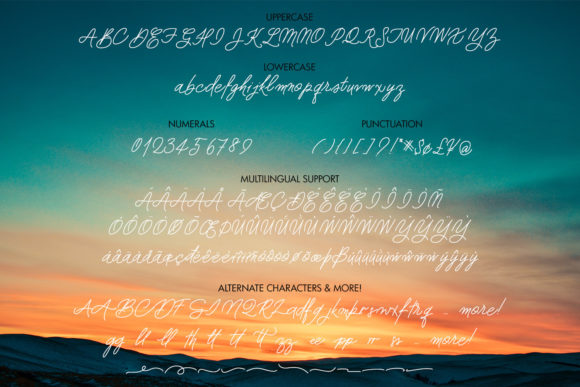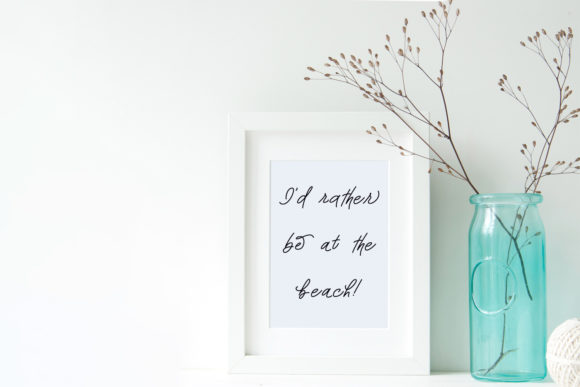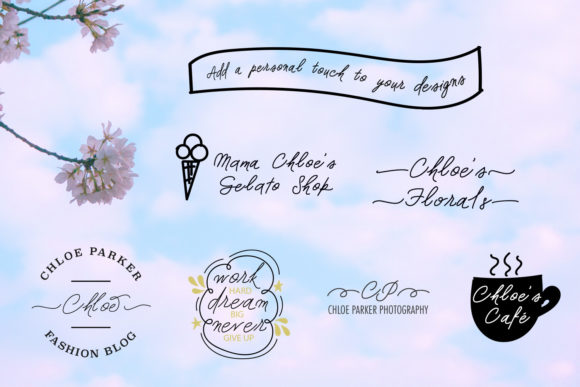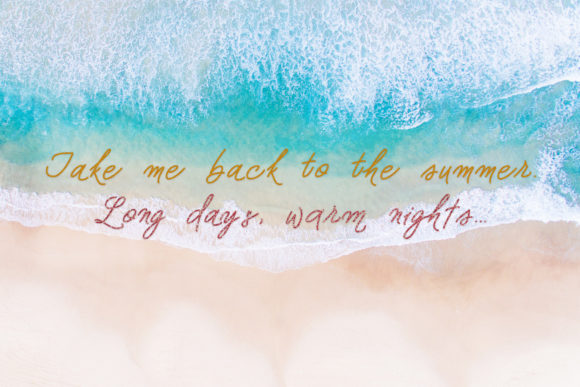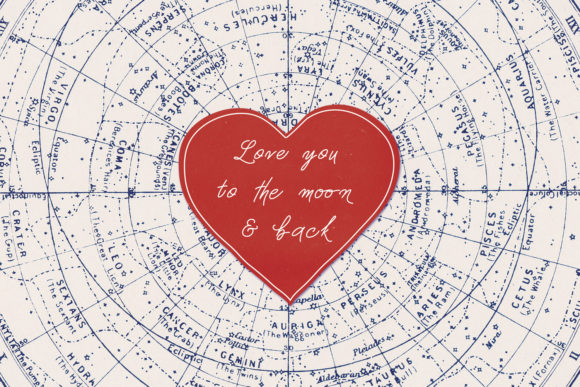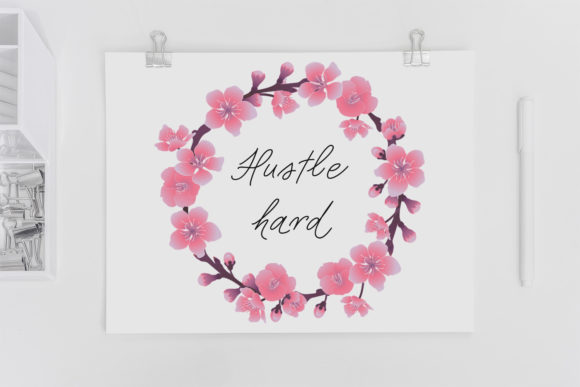
Introduction to Better Weather Font
As a designer, you’ve probably found yourself staring at a blank canvas, waiting for inspiration to strike. That moment when the creative juices start flowing and you know exactly what you want to create – it’s a beautiful feeling. For me, that moment came when I stumbled upon the Better Weather Font, a stunning script font that instantly elevated my design game.
With its elegant, distinct, and thin lettered design, the Better Weather Font is a versatile resource that can enhance any creative project. Whether you’re working on a branding project, a website design, or even a simple social media graphic, this font is sure to make your design stand out. Its high quality and detailed craftsmanship make it a valuable addition to any designer’s library, and the best part? It’s available for a free download, making it an accessible resource for designers of all levels.
So, what sets the Better Weather Font apart from other design resources? For starters, its transparent background makes it easy to layer over any image or background, giving you complete creative control. Whether you’re working on a design project or simply want to add a touch of elegance to your digital creations, the Better Weather Font is an essential tool to have in your arsenal.
Key Features of Better Weather Font
- Unique, hand-drawn style with a weather-inspired theme, adding a touch of personality to any creative project
Honest Review: Better Weather Font
I recently had the chance to work with the Better Weather Font, and I must say it’s a great addition to any design resource. The font is versatile and can be used for a variety of creative projects, from logos to digital displays.
The font’s design is clean and modern, making it perfect for anyone looking to add a touch of sophistication to their design. One of the standout features of the Better Weather Font is its high-quality transparent background, which allows for seamless integration with any design.
- High-quality transparent background
- Modern and clean design
- Perfect for a variety of creative projects
- No support for bold or italic text styles
Overall, the Better Weather Font is a solid addition to any design resource. While it has some limitations, its high-quality design and transparent background make it a great choice for anyone looking to elevate their creative project. With a free download available, it’s definitely worth checking out.
Tips for Getting the Most Out of Better Weather Font
Experiment with different font sizes and styles to achieve the desired effect. Use the Better Weather Font in combination with other design elements to create a visually appealing design. Take advantage of the transparent background feature to add depth and dimension to your design.
The Better Weather Font is ideal for use in creative projects such as graphic design, digital art, and typography. It’s also great for use in presentations, reports, and documents where a high-quality, visually appealing font is required.